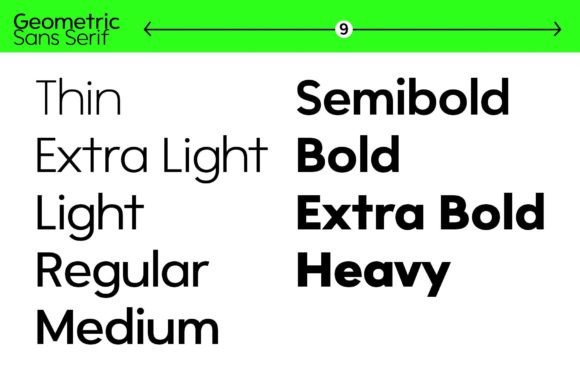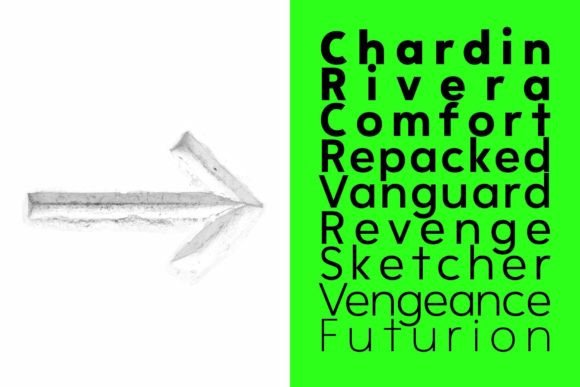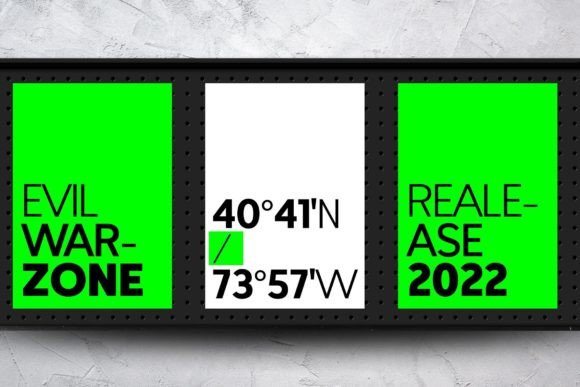
Introduction to Katide Font
Katide is a modern and fresh sans serif font.
Incredibly versatile, this font fits a wide pool of designs, elevating them to the highest levels Add this font to your favorite creative ideas and notice how it makes them come alive.